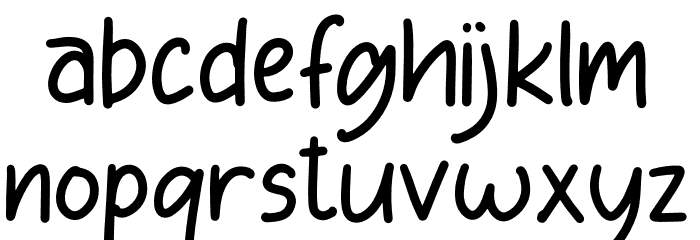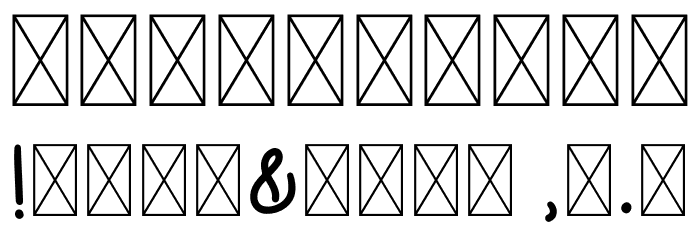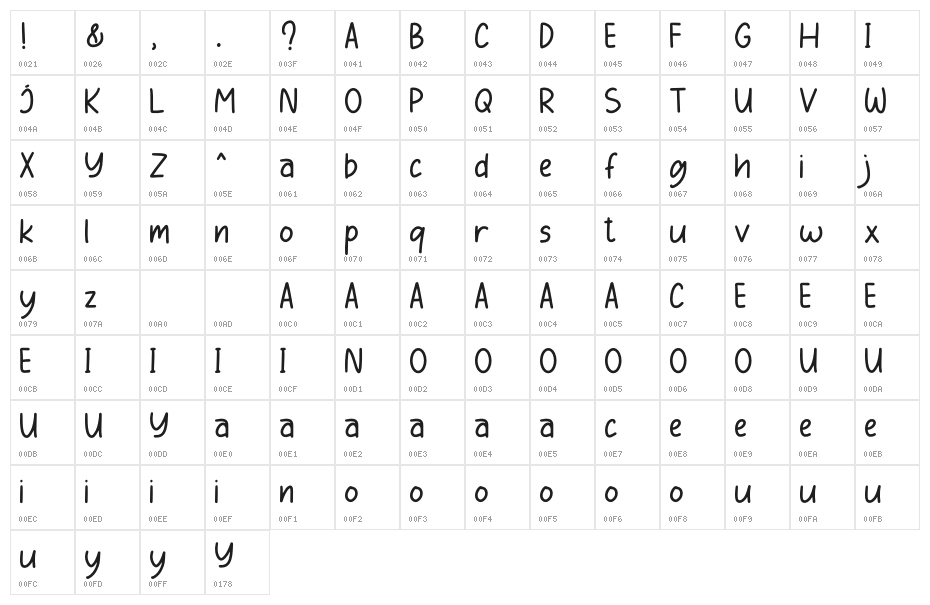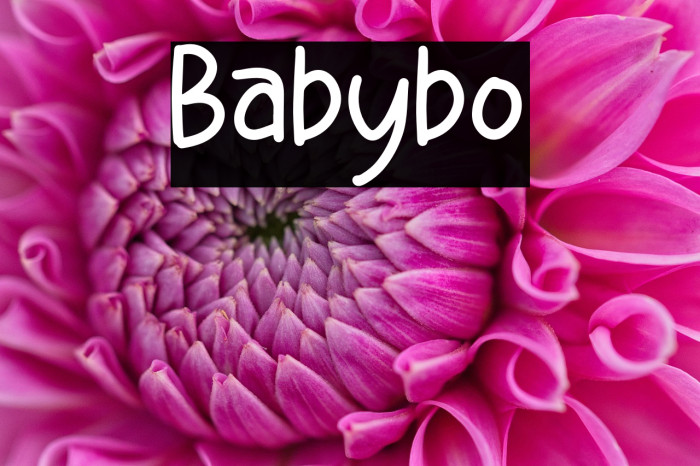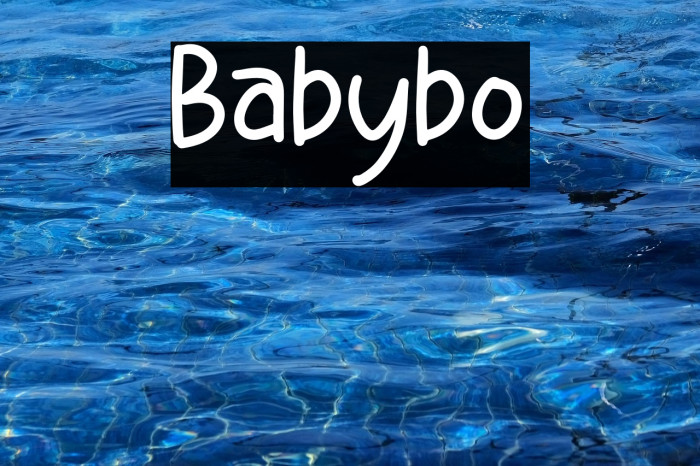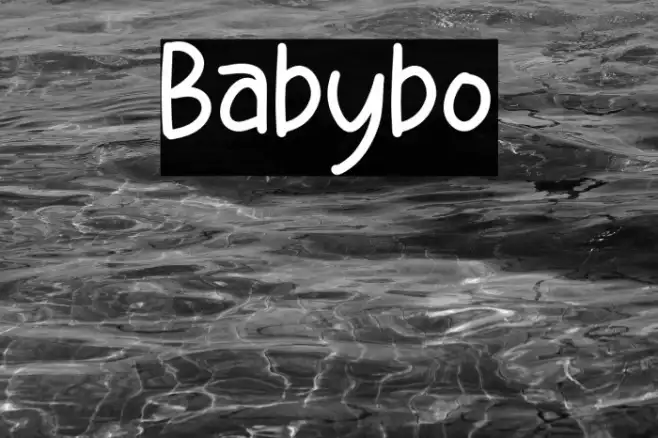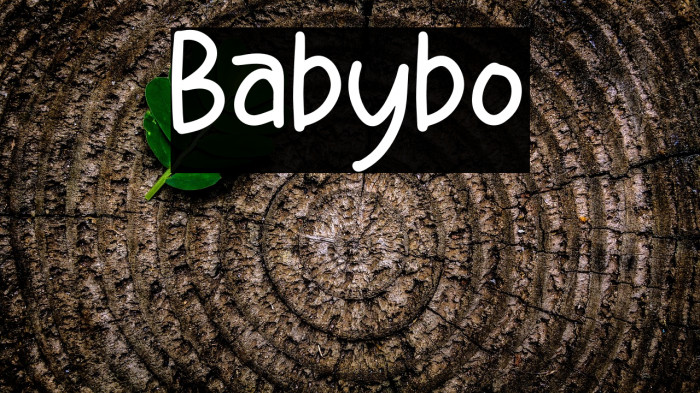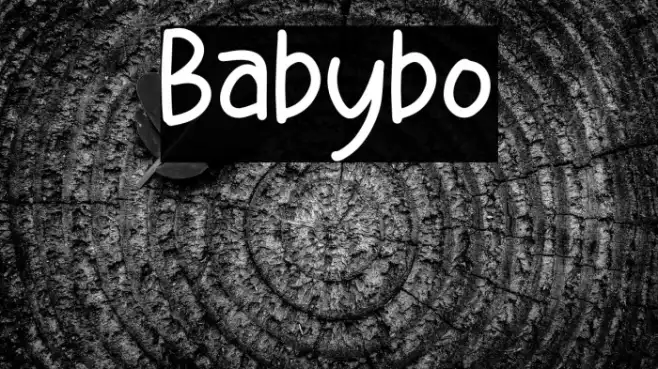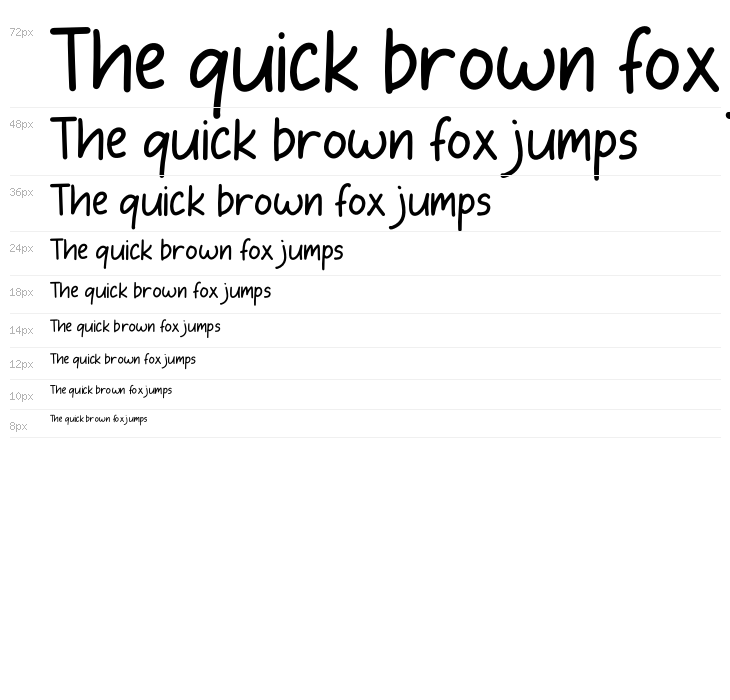
Babybo Font
This playful and casual font features a handwritten style with smooth, rounded edges. The uppercase letters are bold and slightly irregular, giving a friendly and approachable feel. The lowercase letters maintain a consistent flow, with some characters like 'g' and 'j' having distinctive loops. The font lacks numbers and most special characters, focusing on alphabetic characters. Its overall appearance is informal and relaxed, making it suitable for projects that require a personal touch.
A playful, handwritten font with smooth, rounded edges and a casual style.
- Proposed Projects: Ideal for children's books, greeting cards, casual invitations, and playful branding.
- Overall Style: Casual
- Use Case: Headlines, Informal text, Creative projects